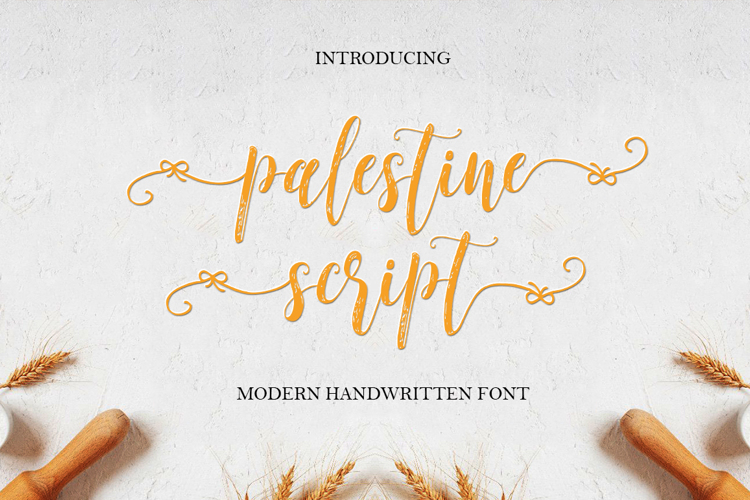
Palestine Script Font
About Palestine Script Font
Thanks for checking out Palesti Script! A fabulously fun yet elegant script font with tons of energy, allowing you to create beautiful hand-made typography in an instant.
Suitable for use in watercolor design or as a hand brushed bold letters. Such as, Apparel, Quotes,, Stationery Design, Branding, Logos, T-shirt, Packaging design, and more.
What's really awesome is that Palestine Script comes with a complete set of lowercase alternates, which allows you to create even more authentic.
1. Palestine Script • A handwritten script font containing upper & lowercase characters, numerals, alternates and a large range of punctuation.Fonts are provided in TTF & OTF formats. I recommend installing the TTF files, and the OTF only if necessary. There is no difference in function with either format.